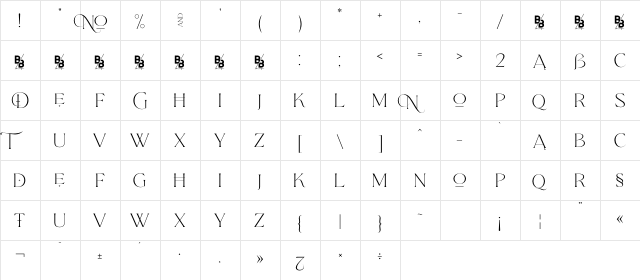
Qene-G Demo Regular
| Foundry | Balibilly Design |
| Designer | Balibilly Design |
Design Context for Qene-G Demo Typeface
Qene-G Demo offers clean, dependable letterforms without strong stylistic allegiance, making it a practical choice for designers who need flexibility.